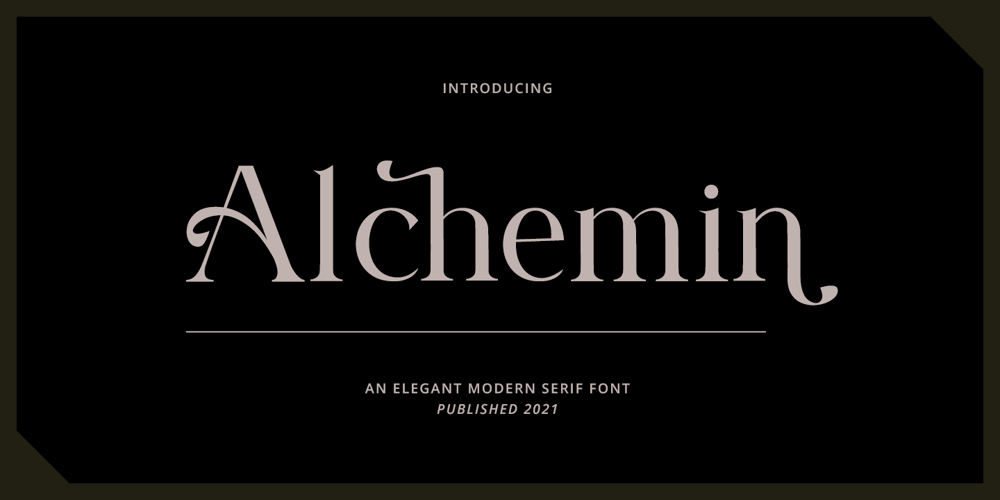
Alchemin
Alchemin font
Alchemin Font Family was designed by Hayinah and published by Rockboys Studio. Alchemin contains 1 styles and family package options. Alchemin is an elegant and authentic serif font. No matter the topic, it will be an incredible asset to your fonts’ library, as it has the potential to elevate any creation.